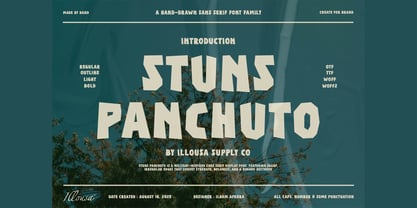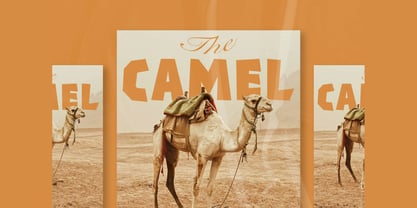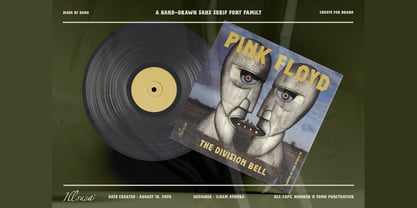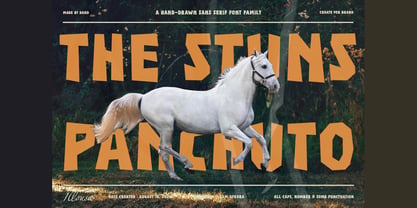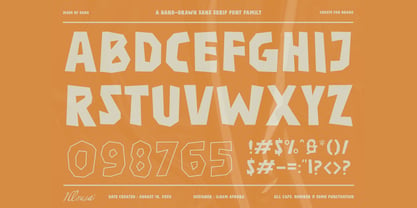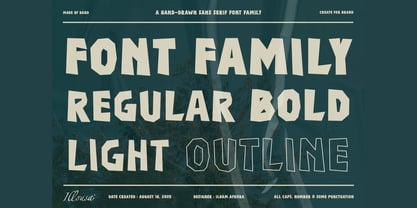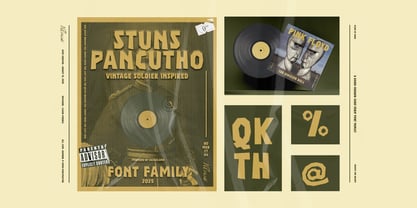
SCC Stuns Panchuto
by Illousa Supply Co
The SCC Stuns Panchuto Font Family was designed by Ilham Afrora and published by Illousa Supply Co. SCC Stuns Panchuto contains 4 styles and family package options.
Stuns Panchuto is a military-inspired sans serif display font family, crafted with sharp and irregular edges to capture a bold and rugged aesthetic. Its strong and commanding character is available in four versatile styles—Regular, Bold, Outline, and Light—giving designers flexibility to create striking contrasts and dynamic compositions. Perfect for posters, apparel, logos, or branding, Stuns Panchuto embodies strength, resilience, and fearless expression in every weight
Designers: Ilham Afrora
Publisher: Illousa Supply Co
Foundry: Illousa Supply Co
Design Owner: Illousa Supply Co